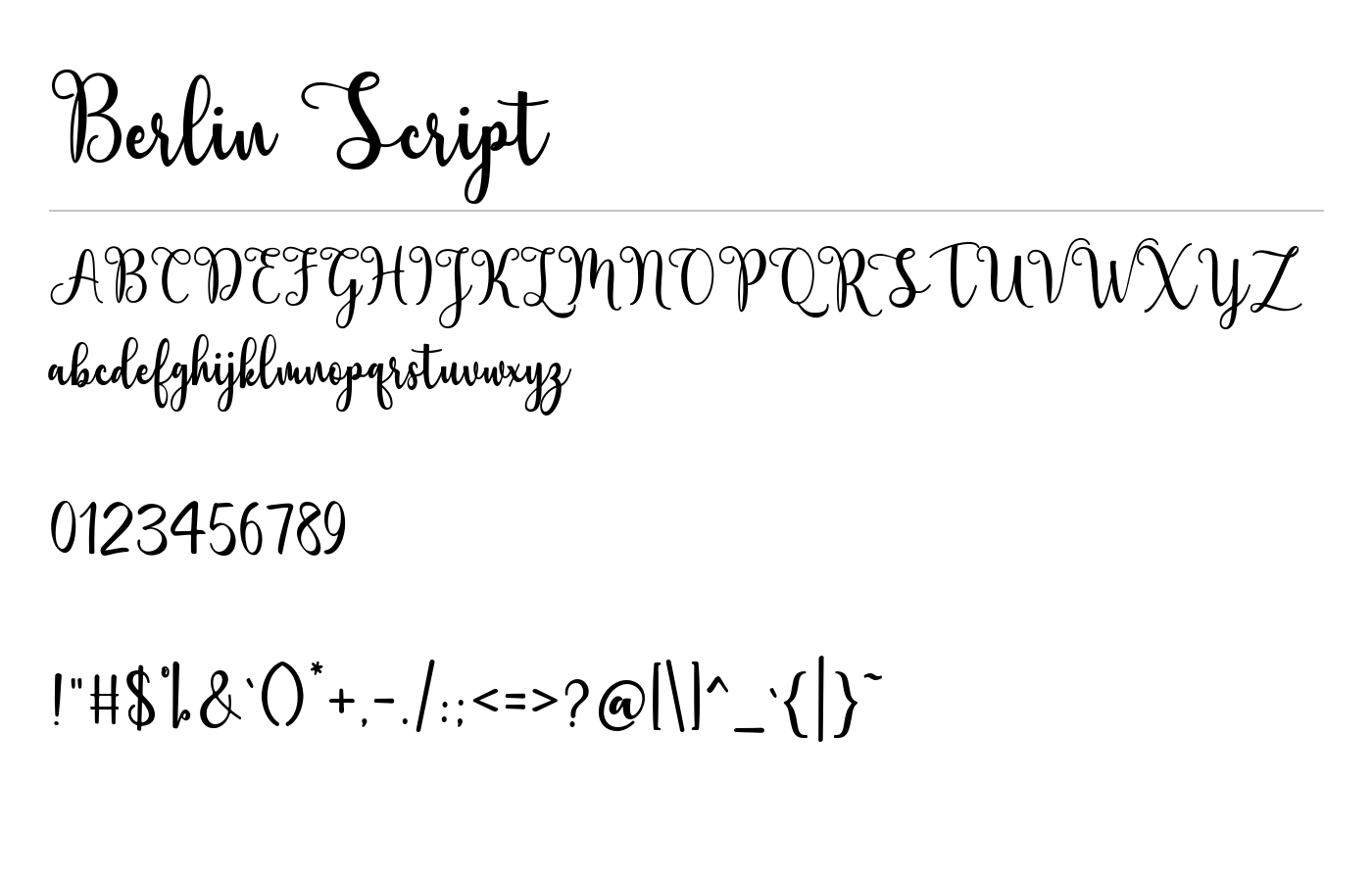
Berlin Script Font is a stylish and elegant script typeface with a playful, hand-drawn feel. Its flowing, cursive strokes combine thin and slightly thicker lines, creating a graceful yet casual look that works beautifully for invitations, branding, and creative projects seeking a personal and charming touch. This font is perfect for designs that want to convey warmth and sophistication with a modern, friendly flair.
Berlin Script Font
About Berlin Script Font
| Font family | Berlin Script Font |
| Designer | Aqeela Studio |